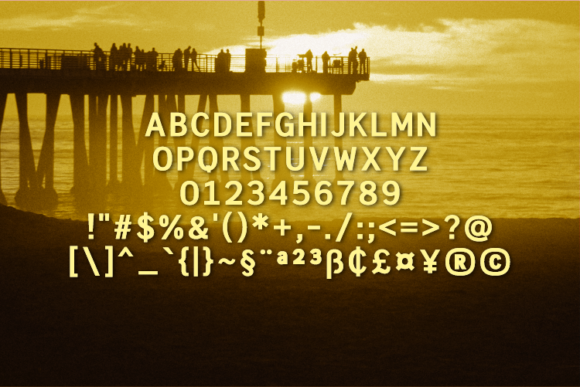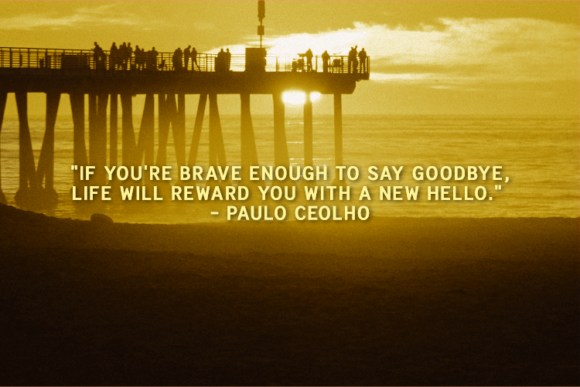
Fresler Font: Elevate Your Designs with a Clean and Modern Sans-Serif Typeface
In the world of design, typography plays a crucial role in conveying messages, expressing creativity, and capturing the audience’s attention. When it comes to selecting the perfect font for your project, you want something that not only complements your design but also elevates it to the next level. This is where Fresler Font comes into play – an authentic sans-serif font designed to add a touch of elegance and sophistication to your work.
What Makes Fresler Font Stand Out?
Fresler is an authentic sans-serif font that boasts a clean, thin, and smooth vibe, making it an excellent choice for designers and crafters looking for a modern and versatile typeface. Its sleek design ensures that it can complement a wide range of projects, from branding and advertising to digital media and print materials.
One of the key features that set Fresler Font apart is its exceptional legibility. The font’s clean lines, subtle curves, and carefully crafted letterforms make it easy to read, even at smaller font sizes. This makes it an ideal choice for body text, headings, and titles, allowing you to create visually appealing and easy-to-read content.
Key Characteristics of Fresler Font
- Clean and Minimalist Design: Fresler Font features a sleek and minimalist design that ensures your content takes center stage.
- Thin and Smooth Lines: The font’s thin and smooth lines create a sense of elegance and sophistication, perfect for designs that require a touch of refinement.
- Exceptional Legibility: Fresler Font is designed to be easy to read, making it suitable for a wide range of applications, from digital media to print materials.
- Versatile and Adaptable: The font’s versatility allows it to complement a variety of design styles, from modern and edgy to minimalist and elegant.
How to Use Fresler Font in Your Designs
Fresler Font is an incredibly versatile typeface that can be used in a variety of design projects. Here are some ideas to get you started:
- Branding and Logo Design: Use Fresler Font to create a professional and modern logo that reflects your brand’s personality.
- Digital Media: Fresler Font is perfect for digital media, including social media graphics, blog posts, and website content.
- Print Materials: The font’s exceptional legibility makes it suitable for print materials, such as brochures, flyers, and business cards.
- Advertising: Fresler Font can add a touch of elegance and sophistication to your advertising materials, including billboards, posters, and magazine ads.
Why Choose Fresler Font?
With so many fonts available, why choose Fresler Font? Here are a few reasons why Fresler Font stands out:
- Unique and Authentic Design: Fresler Font features a unique and authentic design that sets it apart from other sans-serif fonts.
- High-Quality Typography: The font is crafted with attention to detail, ensuring high-quality typography that elevates your designs.
- Easy to Read: Fresler Font is designed to be easy to read, making it suitable for a wide range of applications.
- Versatile and Adaptable: The font’s versatility allows it to complement a variety of design styles, making it an excellent addition to your font library.
In conclusion, Fresler Font is an exceptional sans-serif font that offers a clean, thin, and smooth vibe, making it perfect for designers and crafters looking for a modern and versatile typeface. Its exceptional legibility, unique design, and versatility make it an excellent choice for a wide range of design projects. Whether you’re working on branding, digital media, print materials, or advertising, Fresler Font is sure to elevate your designs to the next level.